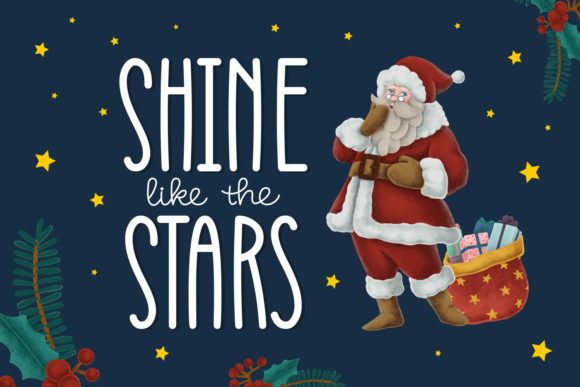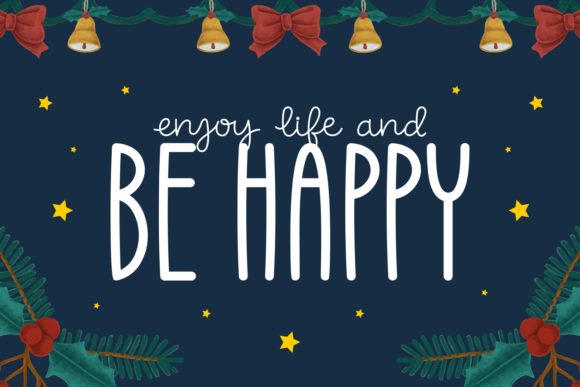
Introduction to Frosthina Font
Have you ever stared at a blank canvas, desperate for the perfect font to bring your creative project to life? I know I have. The struggle is real, but what if I told you there’s a font that can make your design dreams a reality? Enter the Frosthina Font, a stunning sans serif font that’s as versatile as it is beautiful.
| 👤 Author | Keithzo (7NTypes) |
With its clean lines and simple elegance, the Frosthina Font is the perfect addition to any design. Whether you’re working on a high-quality brochure, a website, or a social media graphic, this font is sure to elevate your design to the next level. And the best part? It’s completely free to download, so you can experiment with it to your heart’s content.
So why is the Frosthina Font so valuable to designers? For starters, its transparent background makes it easy to work with, and its unique style is sure to set your design apart from the crowd. Whether you’re a seasoned pro or just starting out, this font is a must-have design resource that’s sure to inspire your next creative project.
Key Features of Frosthina Font
- High-quality, elegant design ideal for creative projects and presentations.
- Unique characteristics include delicate flourishes and subtle texture, adding a touch of sophistication to any design.
- Perfect for use in various design contexts, including logos, typography, and creative graphics.
Honest Review: Frosthina Font
I recently had the chance to work with the Frosthina Font, and I must say, it’s been a game-changer for my creative projects. This free download has been a design resource that I’ve been relying on for a while now.
Here are some things that work well with the Frosthina Font: ✨
- High-quality design: The font is incredibly detailed, with a transparent background that makes it easy to work with.
- Customizability: I love that I can easily adjust the font size and style to fit my design needs.
While the Frosthina Font is great, there are a few limitations to consider: ⚠️
- Limited character set: The font only comes with a basic set of characters, which can be a problem if you need to include special characters or languages.
- No bold or italic versions: If you need bold or italic text, you’ll need to find another font to use.
Overall, I’m really impressed with the Frosthina Font. While it’s not perfect, its high quality and customizability make it a valuable design resource. If you’re looking for a free font to add to your collection, I’d definitely recommend giving it a try.
Frosthina Font is a high-quality, free design resource ideal for creative projects requiring a unique touch. This versatile font is perfect for those seeking a distinctive, elegant look for their work.
Transparent Background and Customization
Frosthina Font often comes with a transparent background, allowing you to customize it according to your design needs. Experiment with different colors and backgrounds to create a unique look for your project.
Tips for Getting the Most Out of Frosthina Font
To maximize the effectiveness of Frosthina Font, use it in combination with other design elements, such as graphics and images, to create a visually appealing design.
Frosthina Font is suitable for various creative projects, including:
- Business cards and branding materials
- Book covers and publishing materials